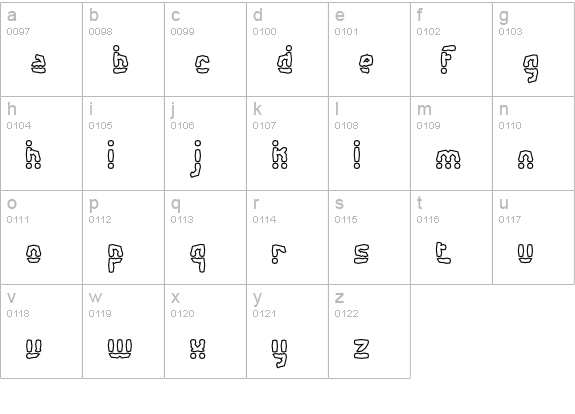
Amalgamate O BRK Font Details
Amalgamate O BRK font is a versatile and modern typeface that exudes sophistication and elegance. Its sleek lines and contemporary design make it perfect for a wide range of projects, from branding to editorial design. This font strikes the perfect balance between professionalism and creativity, making it a go-to choice for designers looking to make a statement. The Amalgamate O BRK font is not only visually stunning but also incredibly easy to read, making it suitable for a variety of applications. Whether you're designing a sleek corporate brochure or a stylish website, this font will bring a touch of class to your project. Best of all, the Amalgamate O BRK font is completely free to download at FontsMarket.com. This means that you can add this beautiful typeface to your collection without breaking the bank. Don't miss out on the opportunity to elevate your designs with this stunning font – download it today and see the difference it can make!